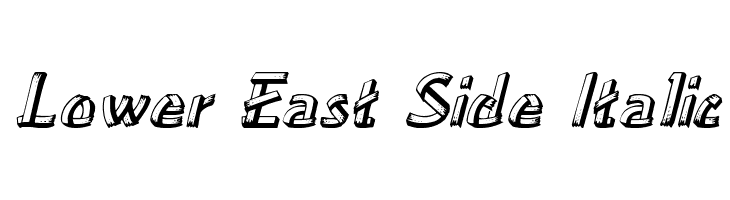
A bold, italicized font with a hand-drawn, sketch-like texture.
A bold, textured, hand-drawn font with a gritty, urban style.
A bold, decorative font with a hand-drawn, three-dimensional style.